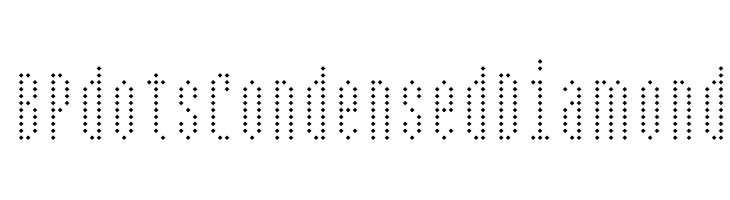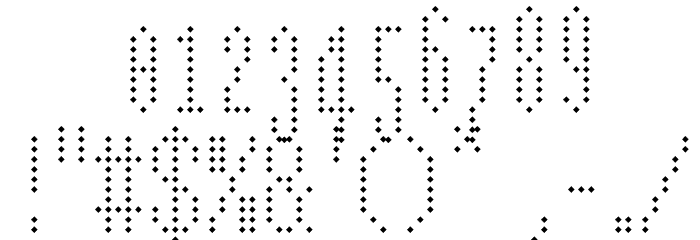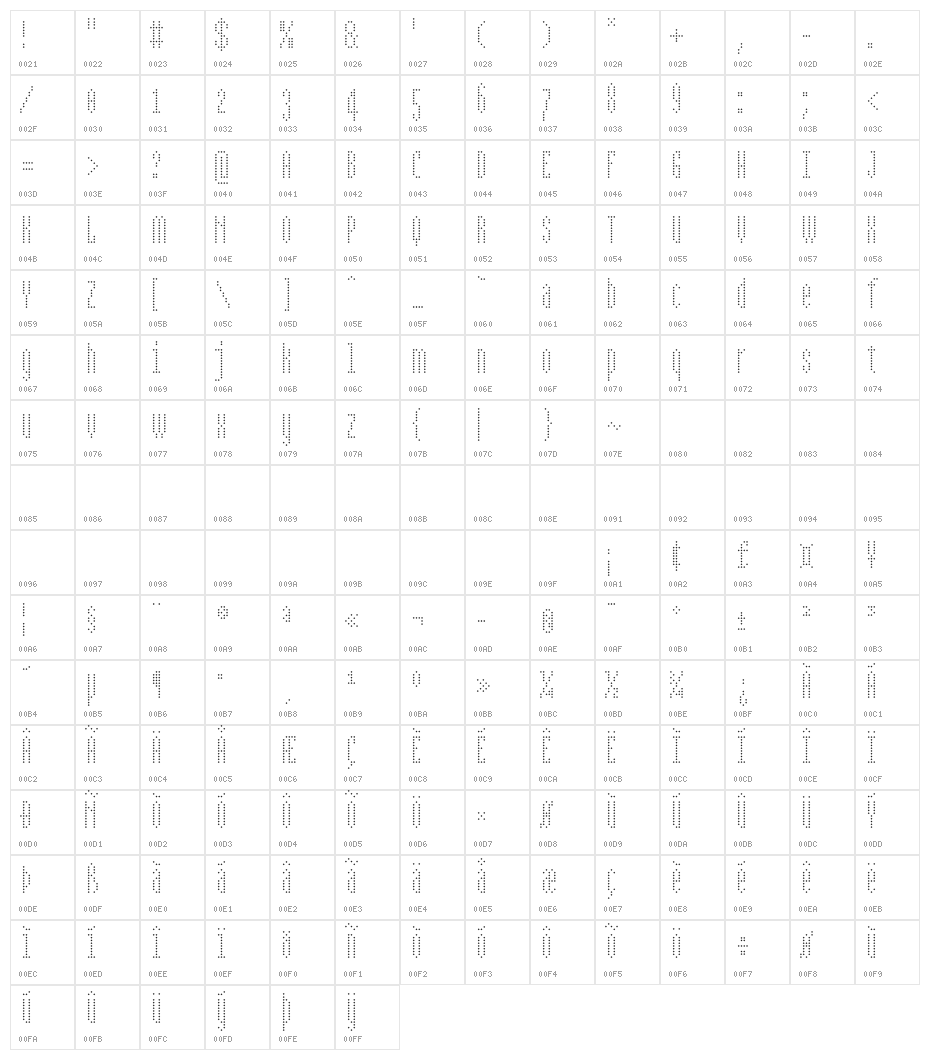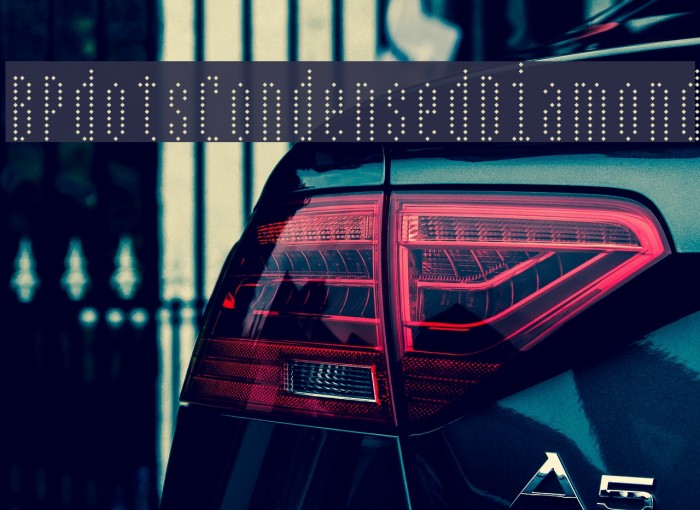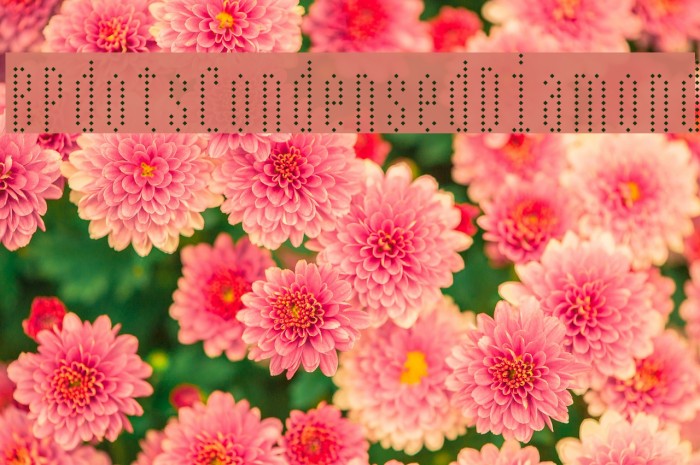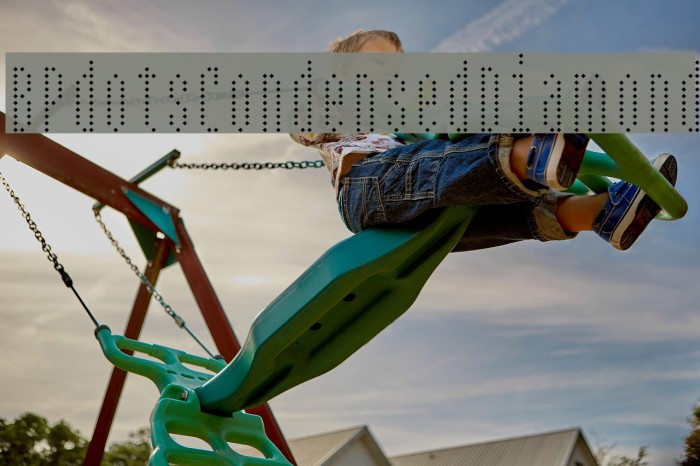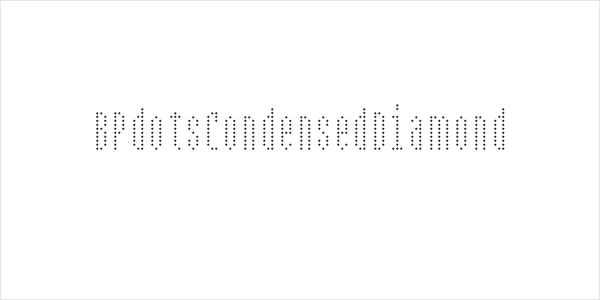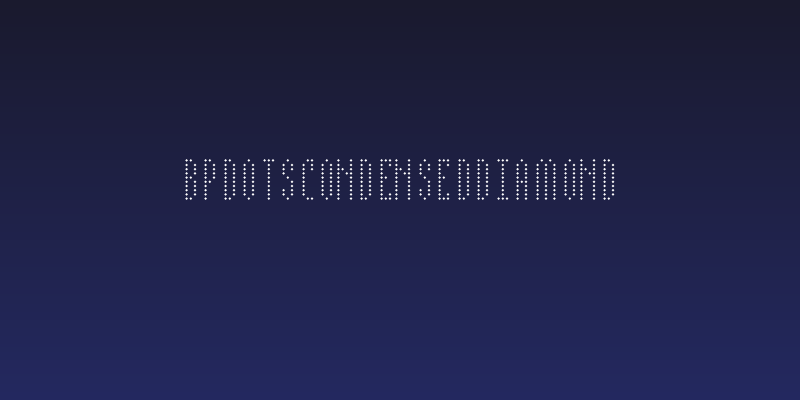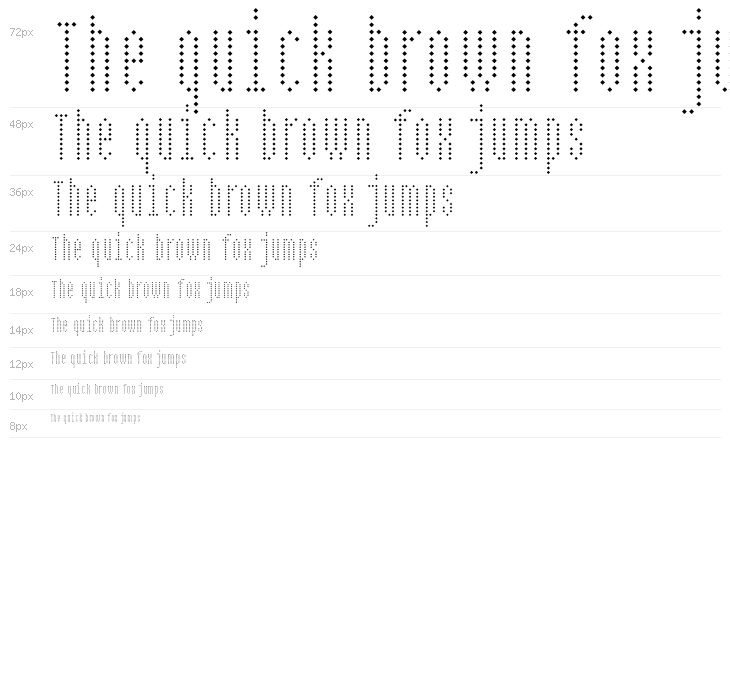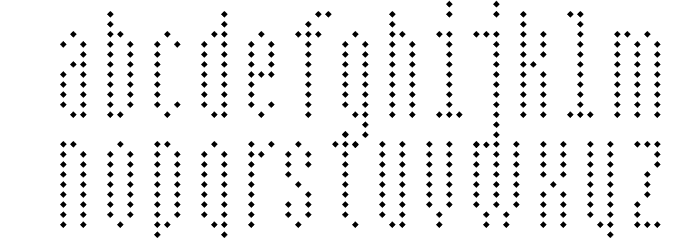
BPdotsCondensedDiamond Font
BPdotsCondensedDiamond Description
This font features a unique dotted design where each character is formed by a series of small diamond-shaped dots. The style is highly decorative, giving it a digital or pixelated appearance. The uppercase and lowercase letters maintain a consistent geometric form, while the numbers and special characters follow the same dotted pattern. This font is visually striking and stands out due to its unconventional structure, making it suitable for creative and modern design projects.
| Proposed Projects | Ideal for digital art projects, modern posters, unique branding, and tech-themed designs. |